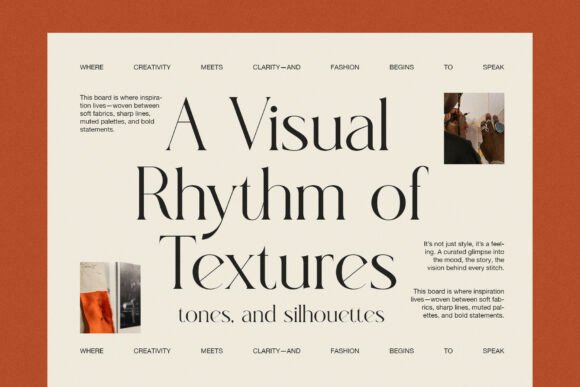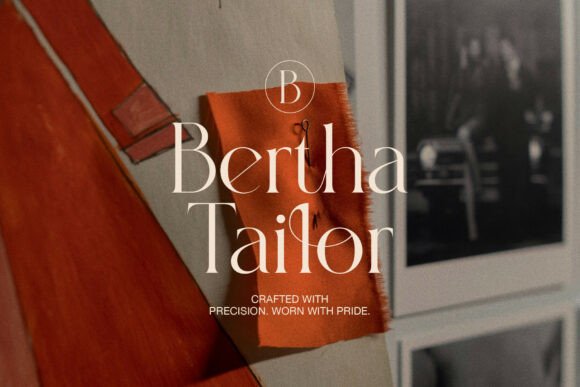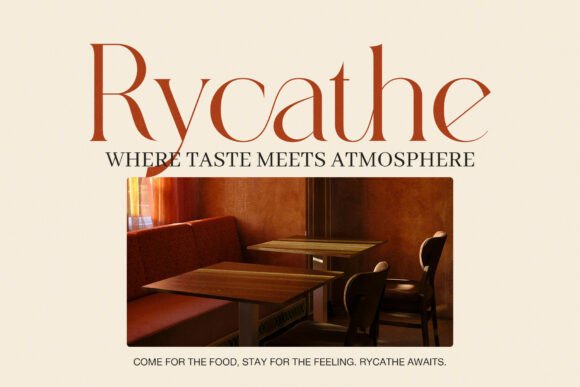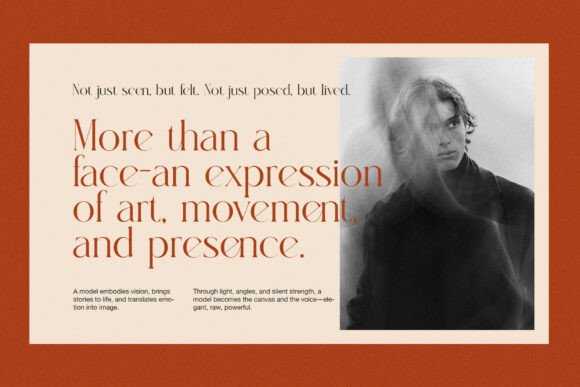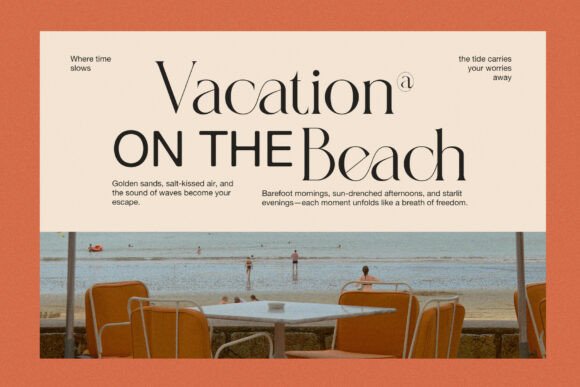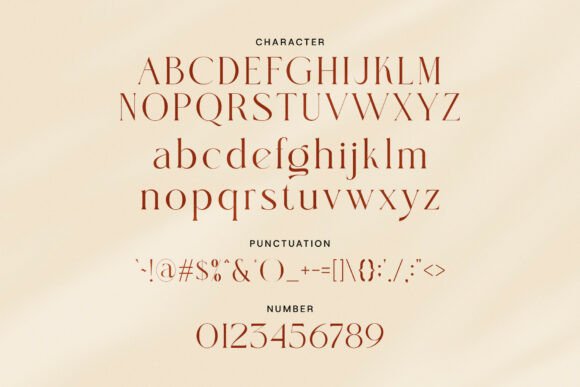
Introducing Clostha Serif: Elevate Your Designs with Elegance and Sophistication
In the world of typography, a font can make or break a design. For those seeking a stylish and classy touch, Clostha Serif emerges as a premier choice. This stunning font seamlessly blends the timeless beauty of classic serif fonts with a clean, modern twist, making it perfect for bold and modern designs. Whether you’re crafting logos, branding materials, posters, or magazine layouts, Clostha Serif is designed to make a lasting impression.
The Essence of Clostha Serif
Clostha Serif boasts high contrast and sharp lines, characteristics that set it apart in the realm of typography. Its unique design makes it an excellent choice for projects where making a statement is key. From the fine details to its overall aesthetic, this font exudes a sense of luxury and sophistication. It’s tailored for designers who aim to add a premium touch to their work, making it ideal for large-scale applications where its intricate features can truly shine.
Top Reasons to Choose Clostha Serif
- Strong Contrast for a Bold and Sharp Look: The high contrast in Clostha Serif gives it a bold and sharp appearance, making it perfect for headlines, titles, and any design element you want to stand out.
- Clean Lines for a Modern Feel: Despite its classic roots, Clostha Serif incorporates clean lines that bring a modern feel to your designs. This blend of old and new ensures your work looks contemporary and relevant.
- Elegant Curves for a High-End Finish: The elegant curves and refined details of Clostha Serif contribute to its high-end look, making it suitable for luxury brands, high-profile events, and premium products.
- Pairs Well with Simple Sans-Serif Fonts: For a harmonious design, Clostha Serif pairs exceptionally well with simple sans-serif fonts. This versatility makes it easier to create balanced and visually appealing typography.
- Great for Logos, Packaging, and Titles: The distinctive look of Clostha Serif makes it particularly effective for logos, packaging, and titles, where differentiation is crucial.
- Supports Many Languages: In our globalized world, supporting multiple languages is a significant advantage. Clostha Serif does just that, making it a practical choice for international brands and projects.
- Comes with Ligatures and Special Features: To further enhance your designs, Clostha Serif comes with ligatures and special typographic features, allowing for more creative and customized typography.
Versatility and Practicality
Clostha Serif is more than just a font; it’s a versatile tool for designers aiming to make a strong impression. Its adaptability means it can be effectively used in both print and digital media. Whether you’re working on a brand’s visual identity, designing an elegant wedding invitation, or crafting a compelling title for a magazine spread, Clostha Serif offers the sophistication and impact you’re looking for.
Tips for Using Clostha Serif
To get the most out of Clostha Serif, consider the following tips:
- Use in Large Sizes: While Clostha Serif can be used in various sizes, it’s particularly stunning in large formats where its fine details can be appreciated.
- Experiment with Ligatures: Take advantage of the ligatures and special features to add a unique touch to your text.
- Pair Thoughtfully: While Clostha Serif pairs well with many font styles, experimenting with different pairings can help you find the perfect match for your design.
Clostha Serif stands out as a sophisticated and versatile font, ideal for designers and crafters looking to infuse their projects with elegance and a modern edge. Its blend of classic serif charm and contemporary design elements makes it a valuable asset for anyone aiming to create visually stunning and impactful work. With its broad range of applications, from luxury branding to creative design projects, Clostha Serif is poised to become a go-to font for those seeking to elevate their designs.
Whether you’re a seasoned designer or a crafty DIY enthusiast, Clostha Serif offers the tools you need to bring your vision to life with style and sophistication. Explore the possibilities of Clostha Serif today and discover how it can transform your designs into something truly remarkable.